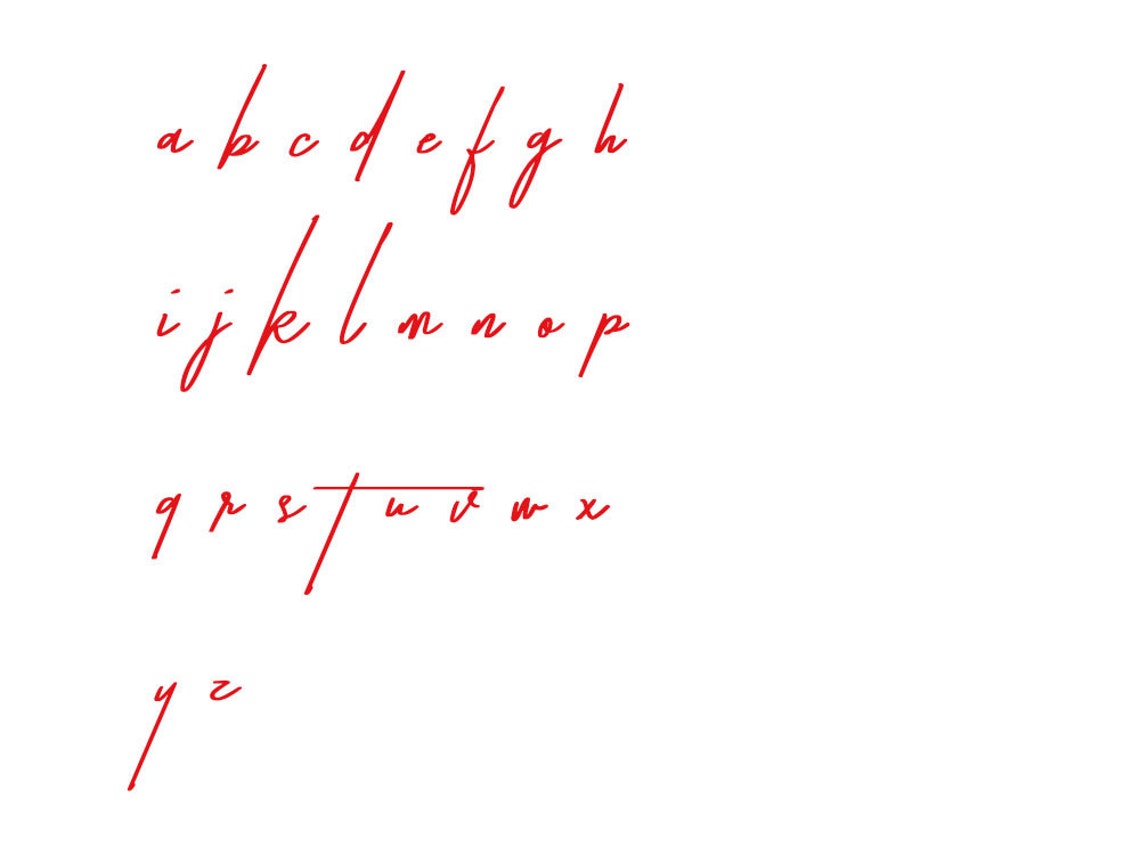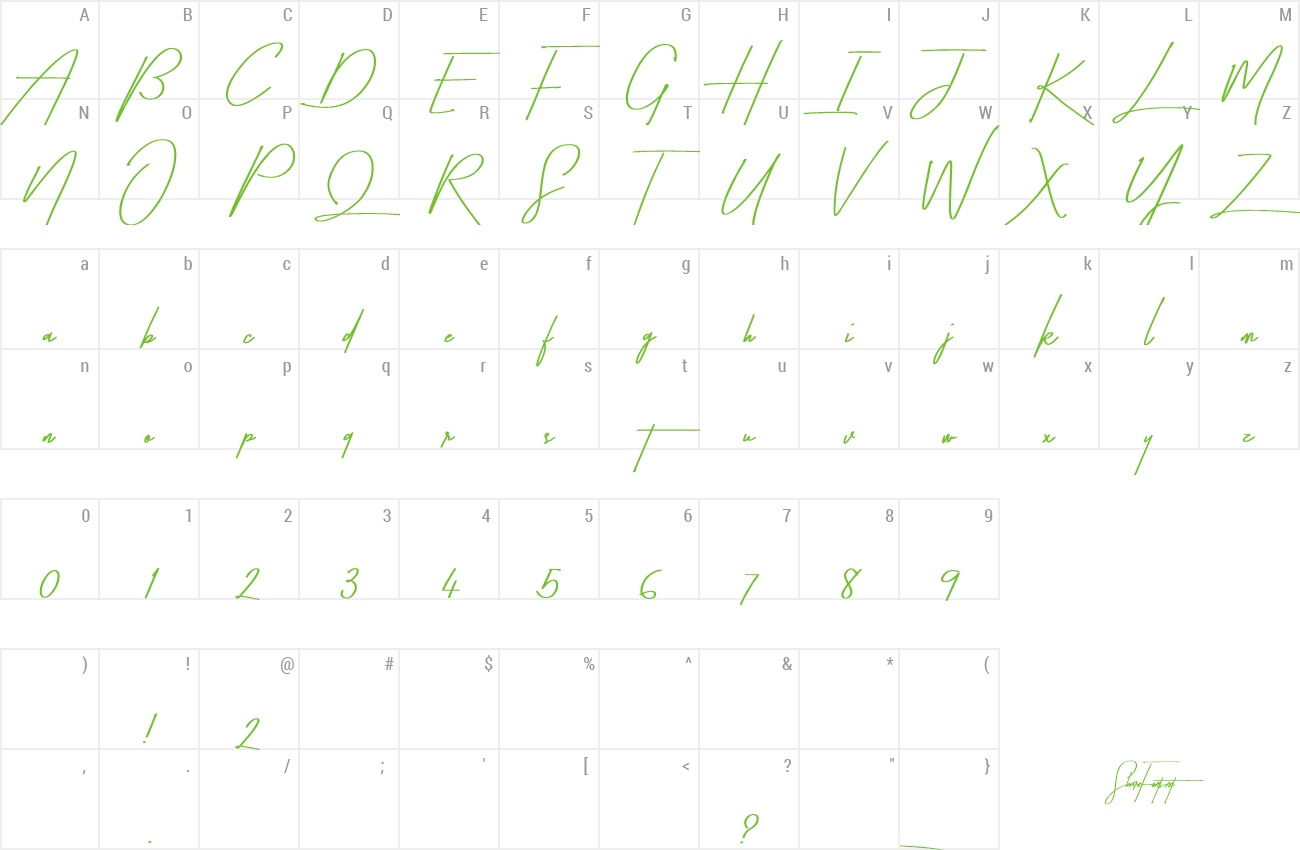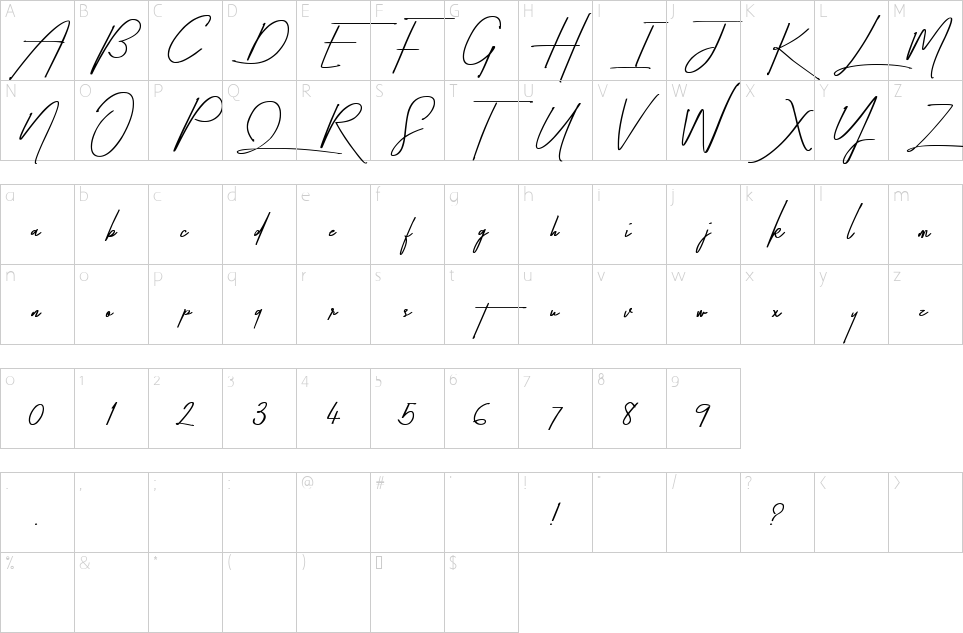
Taking By Vulture Font
Taking By Vulture Font - Web taken by vultures can work as your new signature text or as a solid cover to your presentations.
Web taken by vultures can work as your new signature text or as a solid cover to your presentations.